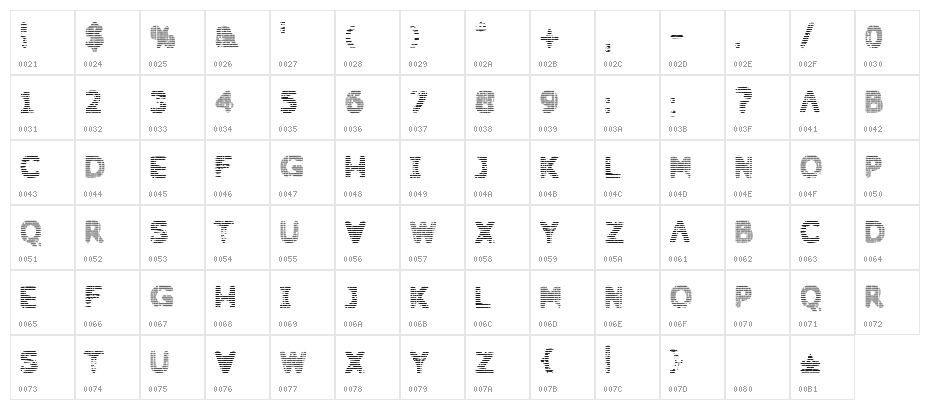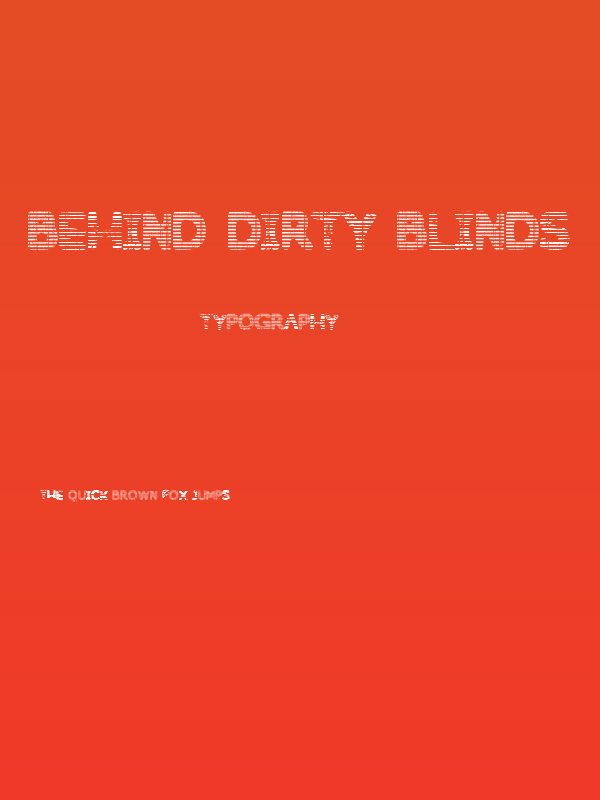
Behind Dirty Blinds Font
Behind Dirty Blinds Description
This font features a unique design with horizontal lines running through each character, creating a textured, striped appearance. The letters are bold and uppercase, with a modern, industrial feel. The spacing between the lines gives the impression of looking through blinds, adding a sense of depth and intrigue. The characters are evenly spaced, maintaining a consistent width throughout. This font is ideal for projects that require a distinctive and eye-catching style, such as posters, album covers, or branding materials. Its decorative nature makes it stand out, while the boldness ensures readability.
| Proposed Projects | Posters, album covers, branding materials, and decorative signage. |